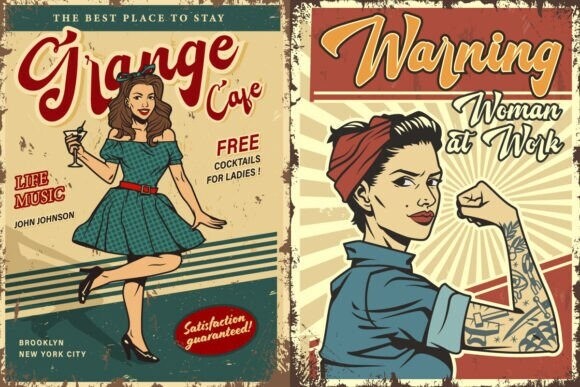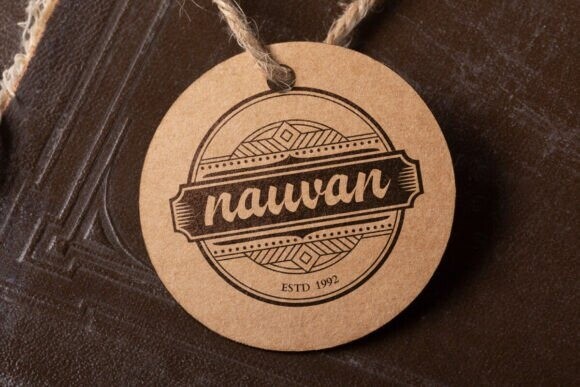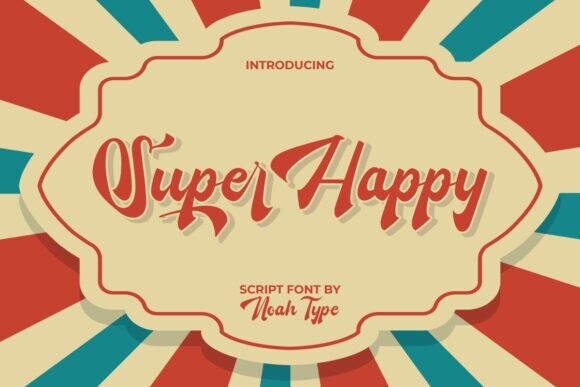
Super Happy Typeface
Designer: noahtype
Super Happy Typeface is an artistic retro vintage script font with an old poster style. The appearance of this font is thick with the feel of the 80s which will make people nostalgic and happy when they see your design, such as business cards, custom designs, invitations, labels, magazine catalogs, menus, posters, product packaging, quote, title, website, and more!